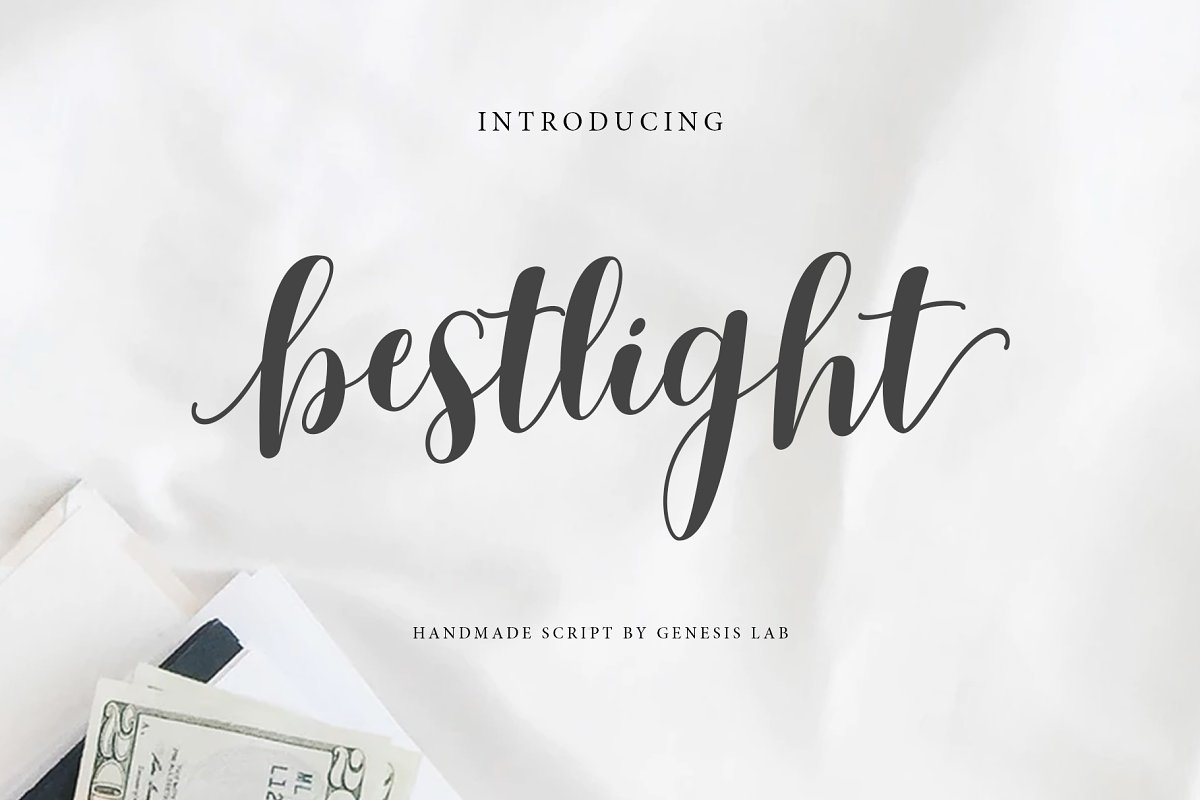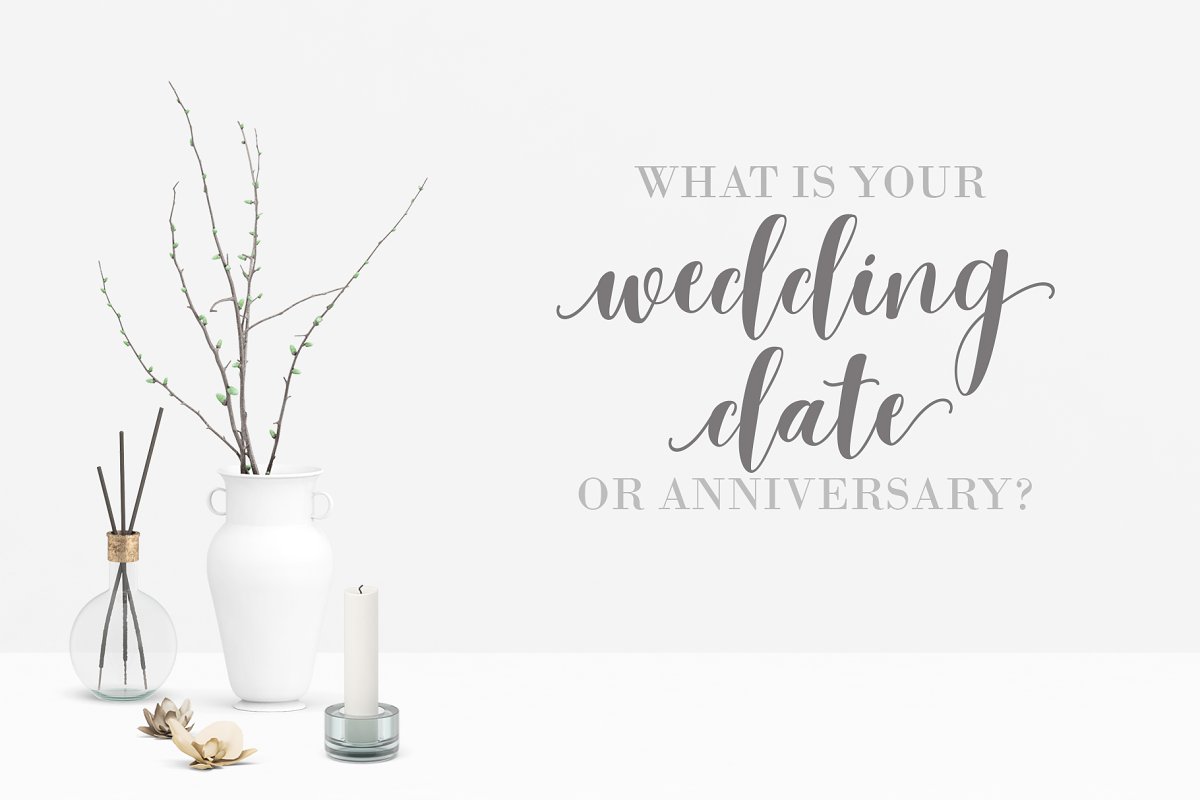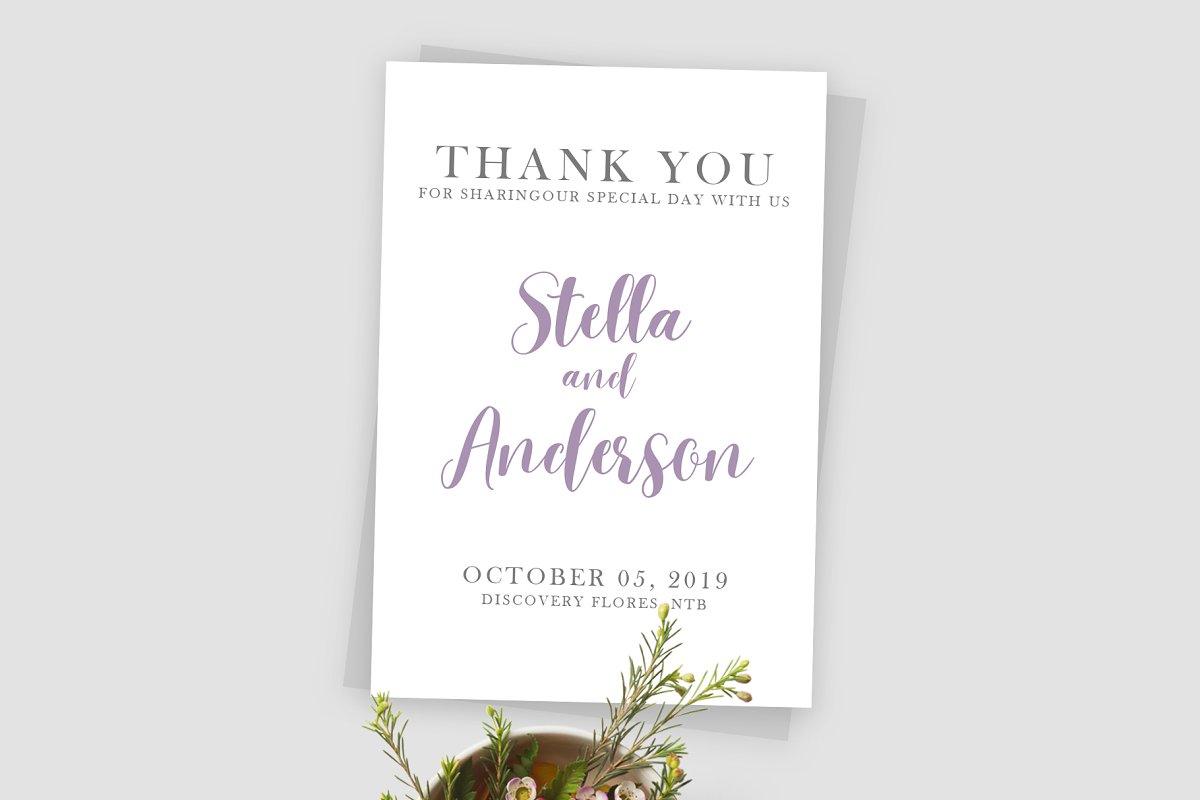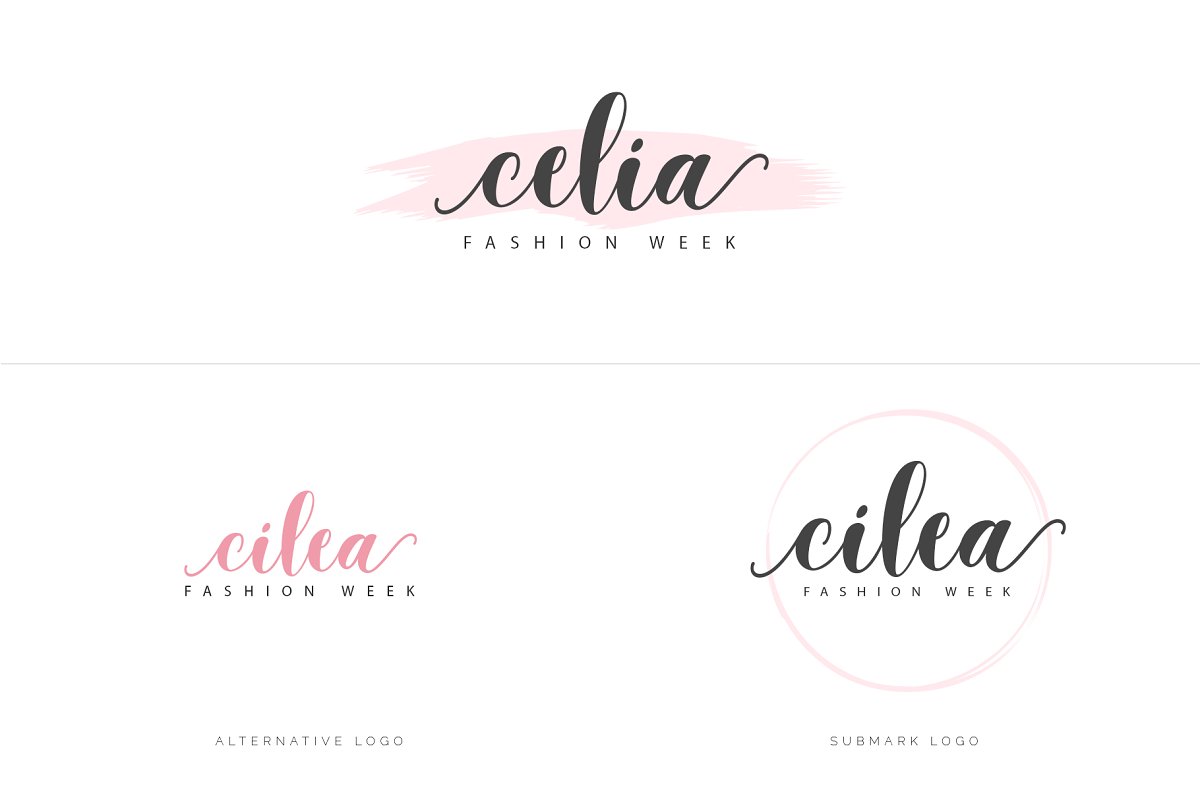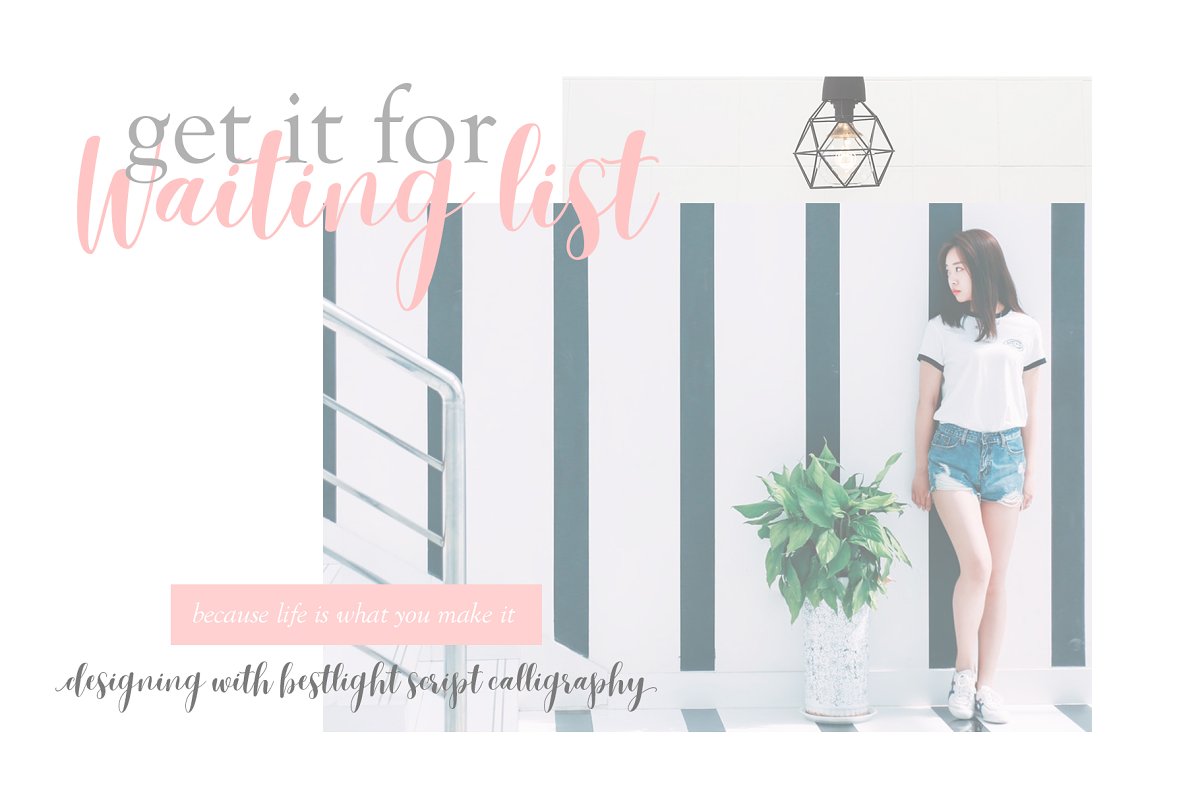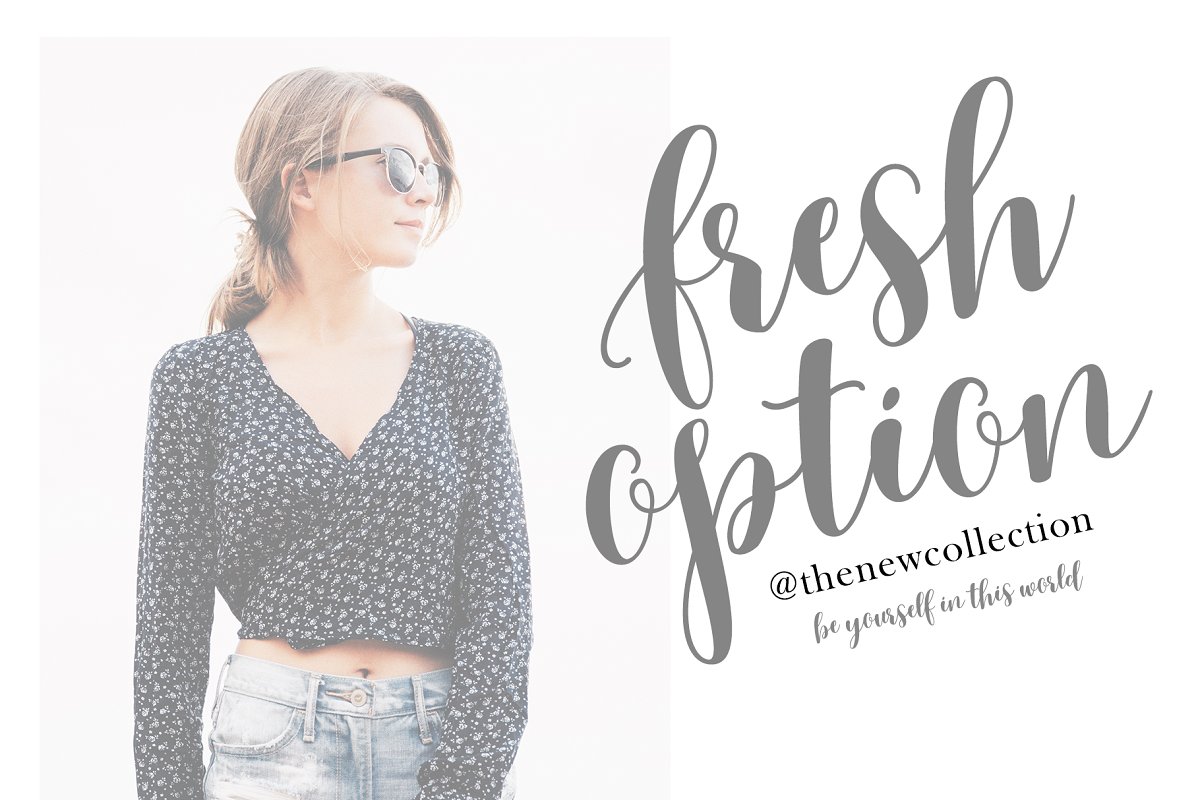
Latest Bestlight font scratch sharp hand, I hope you are interested in this font, if you want to use for your work this font can be used easily and simply because there are many features in it contains a complete set of lowercase letters and uppercase letters, various punctuation, numbers, and multilingual support, Fonts also contain several ligatures and alternate styles of Stylistic Sets for those of you who have software capable of working OpenType (Photoshop / Illustrator / InDesign)
Use the format below, , Bestlight, otf, Bestlight, ttf Bestlight fonts have a touch of Trendy model, natural and gentle, with these fonts you can take advantage of opportunities at any time from an amazing way to highlight your best party celebrations, as these fonts will be a support for necessities like wedding invitations, parties, graduations, year, meeting, etc